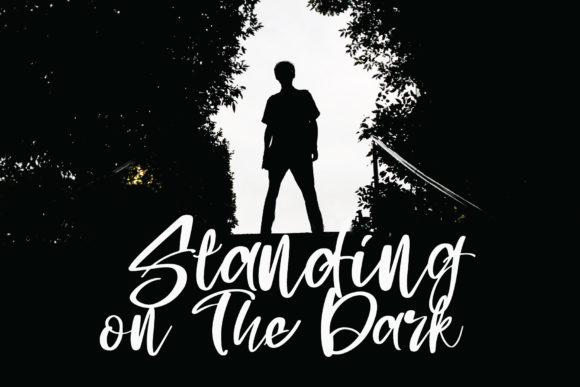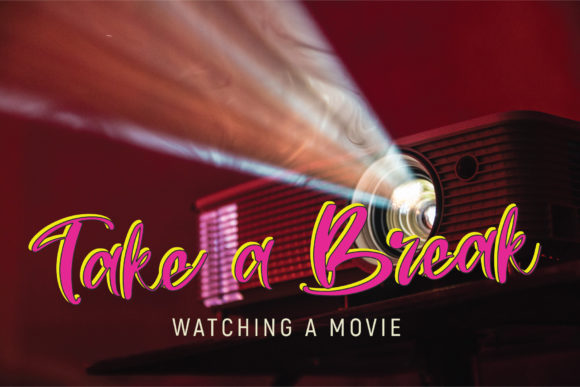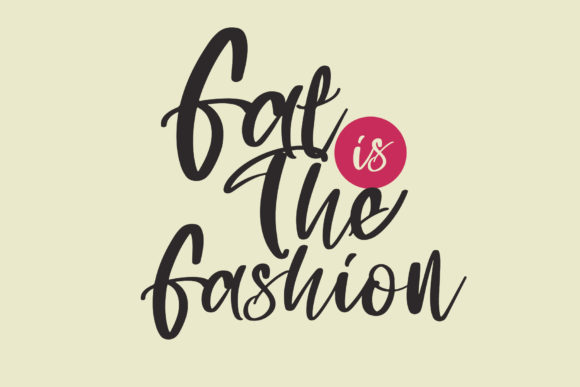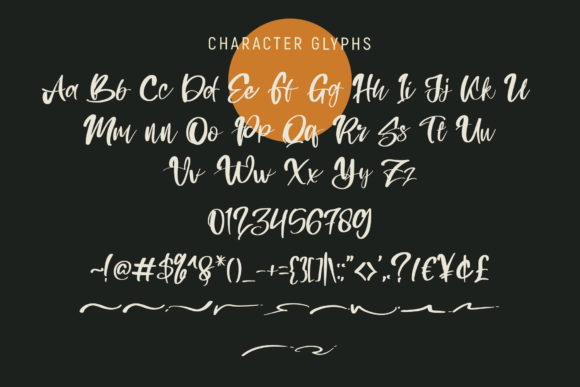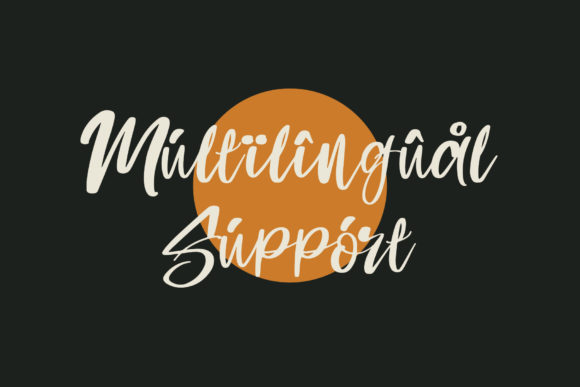
Introduction to Packos Font
Have you ever sat down at your desk, pen in hand, and stared at a blank sheet of paper, waiting for inspiration to strike? For many of us, this is a familiar creative moment, one that sparks the imagination and sets our projects in motion. For designers, finding the right font can be the key to unlocking that perfect touch of elegance and sophistication in their work.
Enter the Packos Font, a stunning script font that adds a handwritten touch to any design. Whether you’re working on a wedding invitation, a thank you card, or a logo, this beautiful font is sure to elevate your creative project to the next level. With its high-quality design and transparent background, it’s a valuable resource for designers who demand the best.
Key Features of Packos Font
- High-quality, professional design perfect for creative projects and various design resources.
- Comes with a transparent background, allowing for seamless integration into your design.
- Features a unique, modern design that is sure to elevate your creative project.
Honest Review: Packos Font
As a designer, I’m always on the lookout for high-quality design resources that can elevate my creative projects. Recently, I had the chance to work with the Packos Font, and I’m excited to share my thoughts with you.
What works well: ✨ The Packos Font is a beautifully designed font that boasts a modern and sleek aesthetic. It’s perfect for any design project that requires a clean and sophisticated look. I particularly love the transparent background, which allows for seamless integration with other design elements. Plus, it’s available for free download, making it a great resource for designers on a budget.
What doesn’t work so well: ⚠️ While the Packos Font is a great design resource, it’s not without its limitations. The font family is relatively small, and it may not be suitable for large-scale or complex designs. Additionally, the font may not be as versatile as some other options, which could limit its use in certain creative projects.
Overall, I’m impressed with the Packos Font and would definitely recommend it to designers looking for a high-quality, free design resource. With a little creativity and planning, this font can be a great addition to any design project.
Here are some key features of the Packos Font:
- High-quality, modern design
- Perfect for creative projects requiring a clean and sophisticated look
Tips for Getting the Most Out of Packos Font
To get the most out of Packos Font, use it on a transparent background to create a sleek and modern design. You can also pair it with other design elements to create a unique look.
Common Use Cases for Packos Font
Packos Font is commonly used in logos, branding materials, and digital designs. It’s a versatile font that can be used in a variety of creative projects.